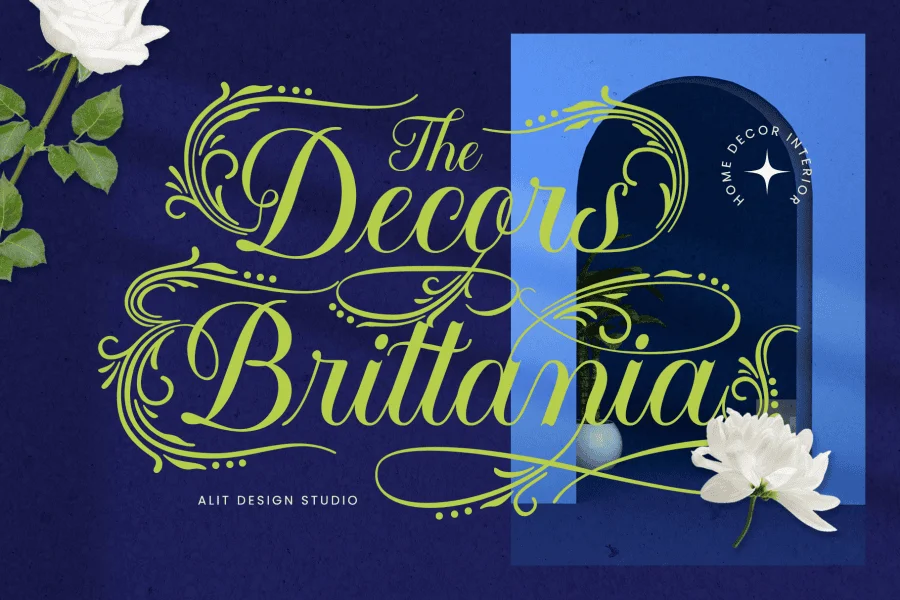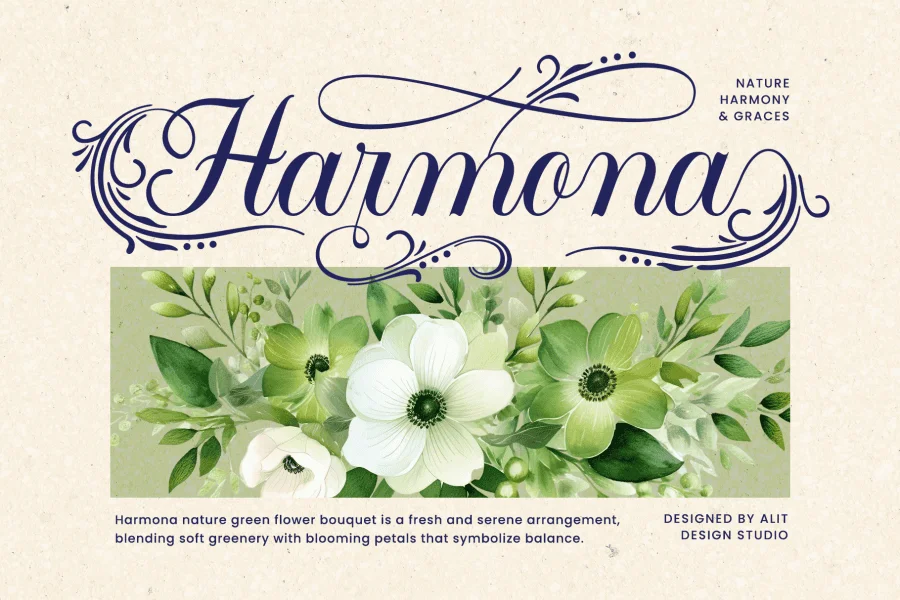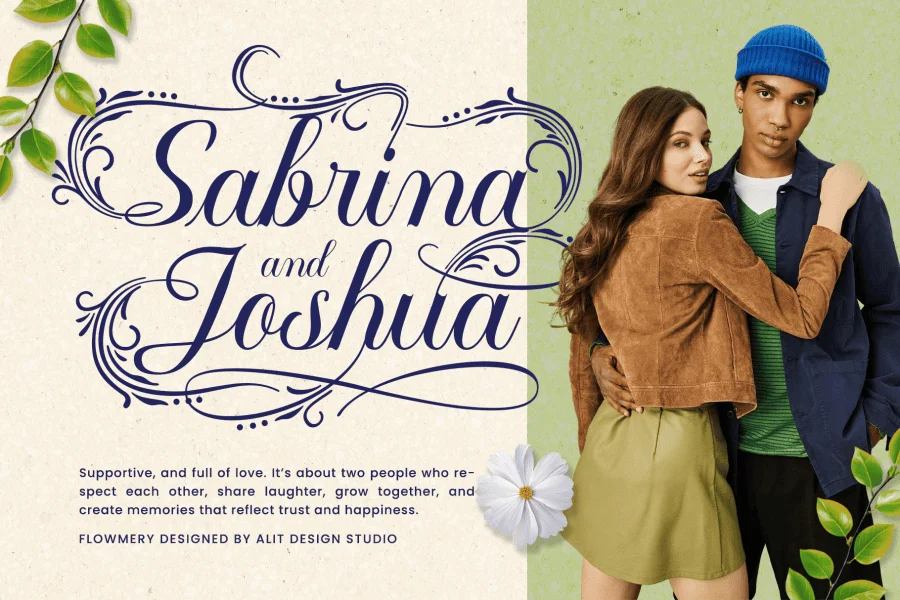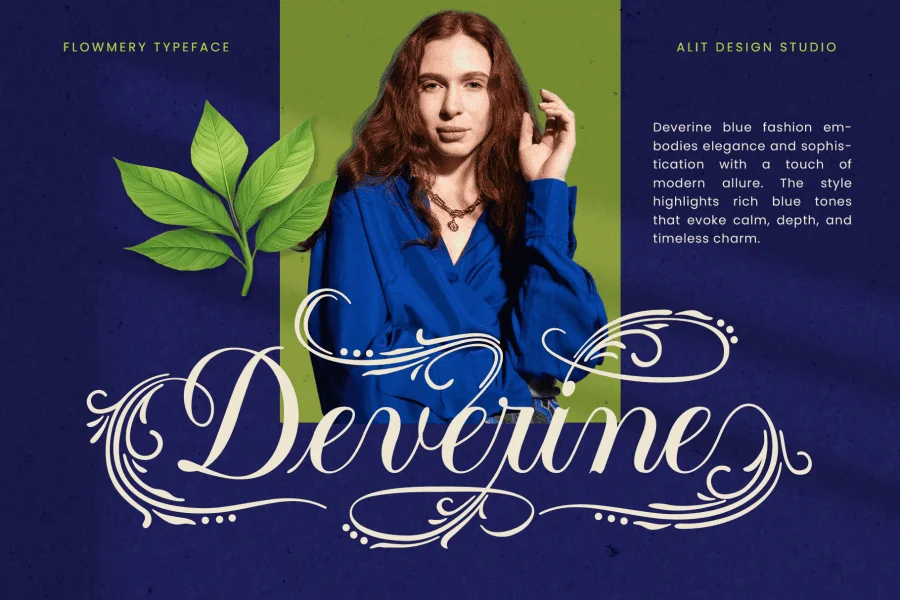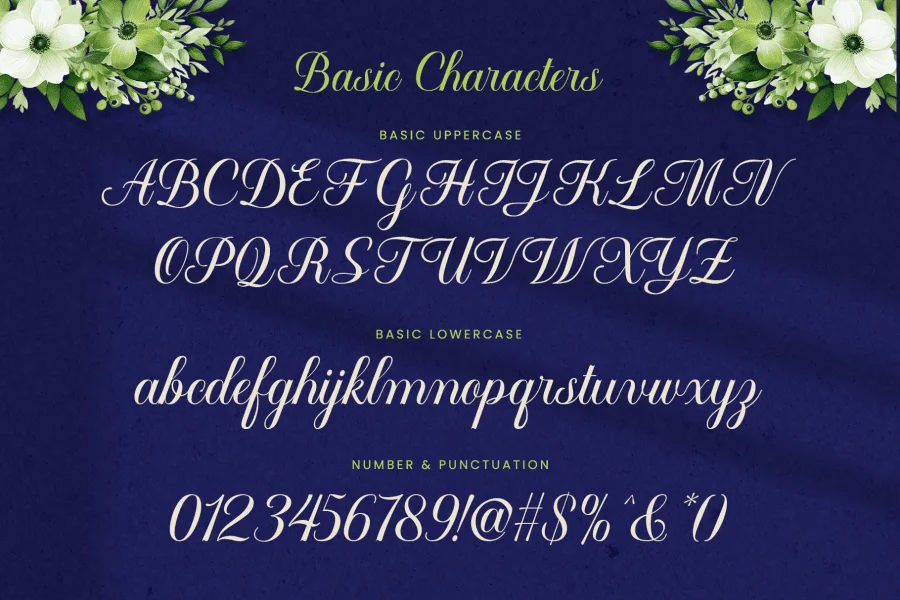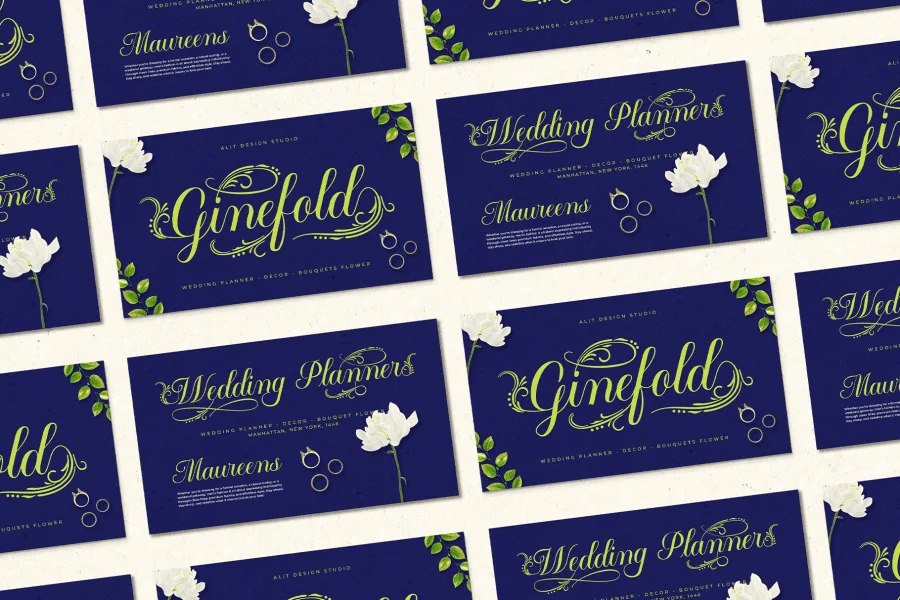
Flowmery - A Naturally Elegant Calligraphy Script
Proudly presenting Flowmery, an elegant and flowing script typeface that finds its inspiration in the delicate beauty of nature and the timeless art of fine calligraphy. Designed with meticulous attention to detail, Flowmery captures the essence of organic forms and graceful movements, making it the perfect choice for projects that require a touch of sophistication and natural charm.